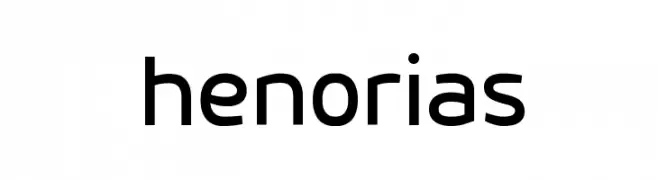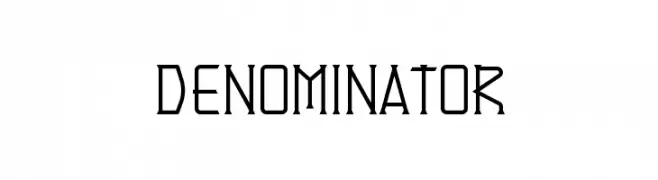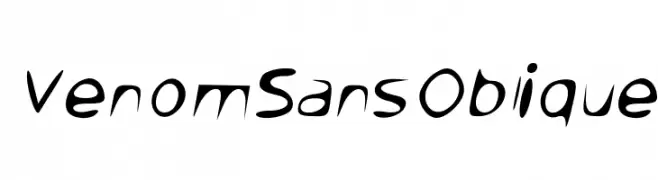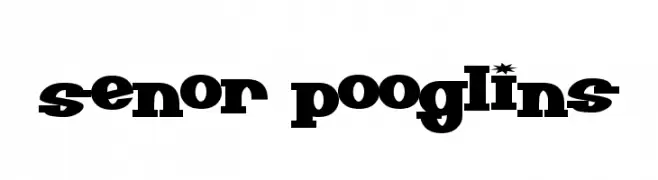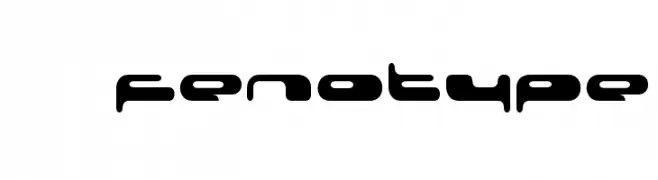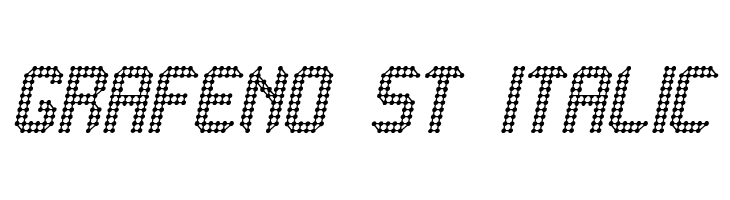
A modern, sleek font with rounded edges and uniform stroke width.
A geometric, angular font with a modern and technical style.
A dynamic, edgy font with sharp, angular strokes and an oblique slant.
A modern, geometric font with an italic slant and hexagonal pattern.
A bold, decorative font with a playful, vintage circus theme.
A futuristic, bold font with rounded, geometric letterforms and low contrast.
A thin, modern sans-serif font with a clean and minimalistic design.
A playful, handwritten-style font with bold, rounded characters.
A playful, bold font with rounded, hand-drawn characters.